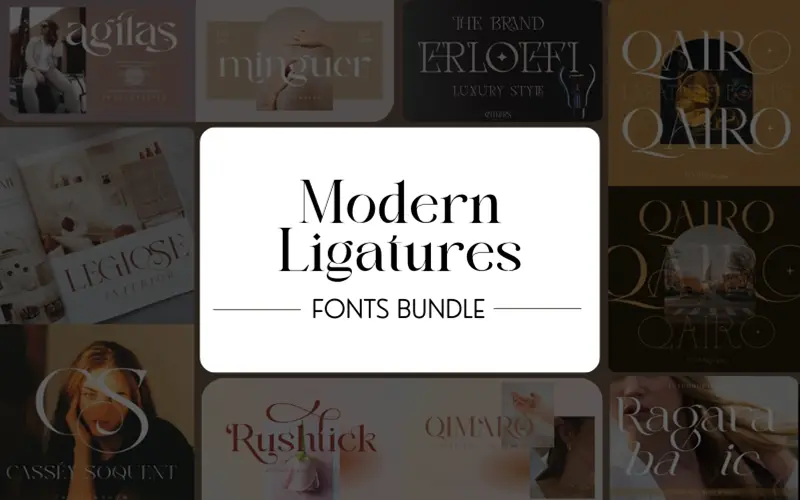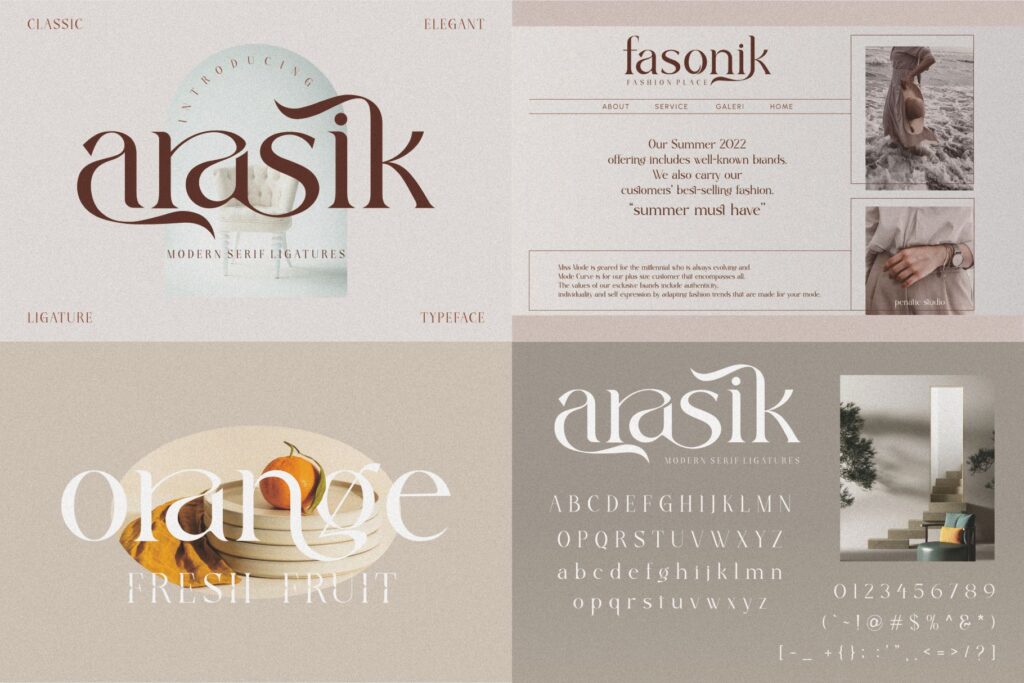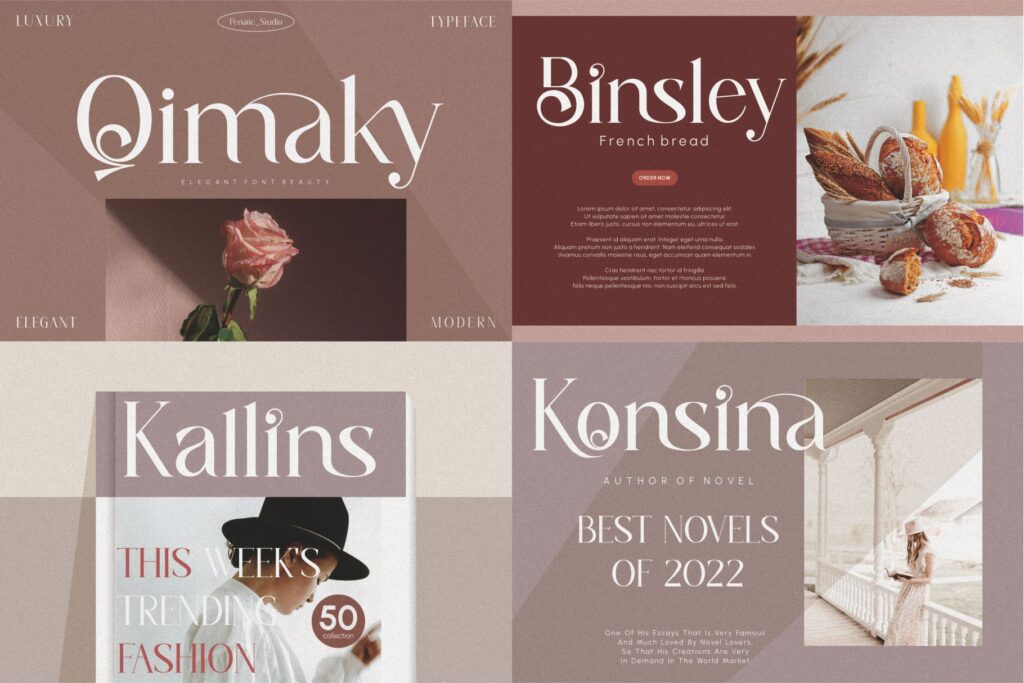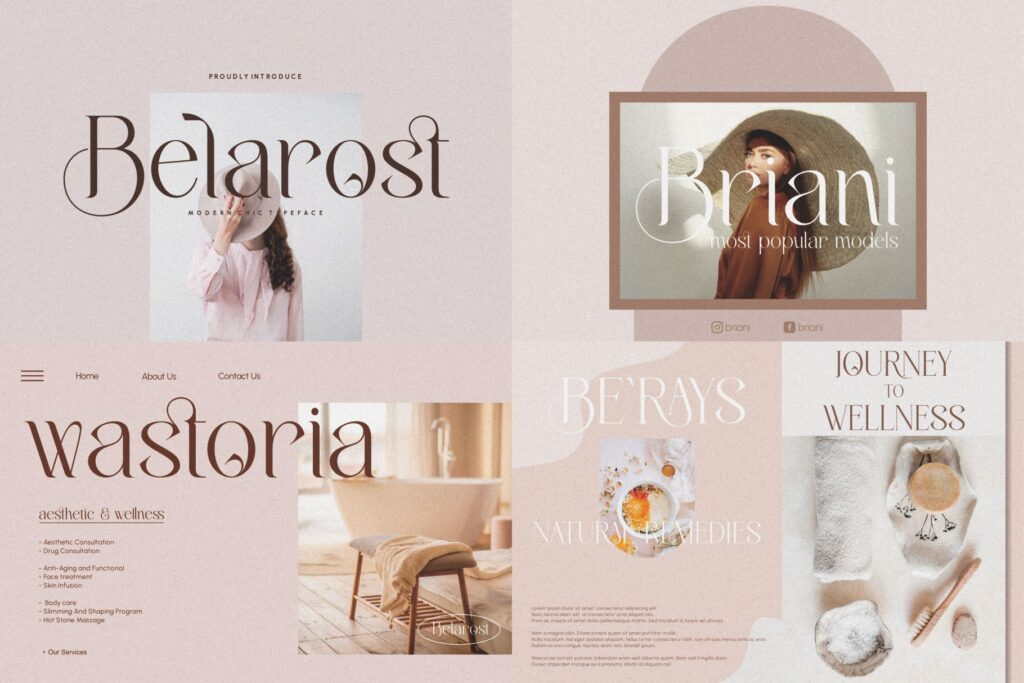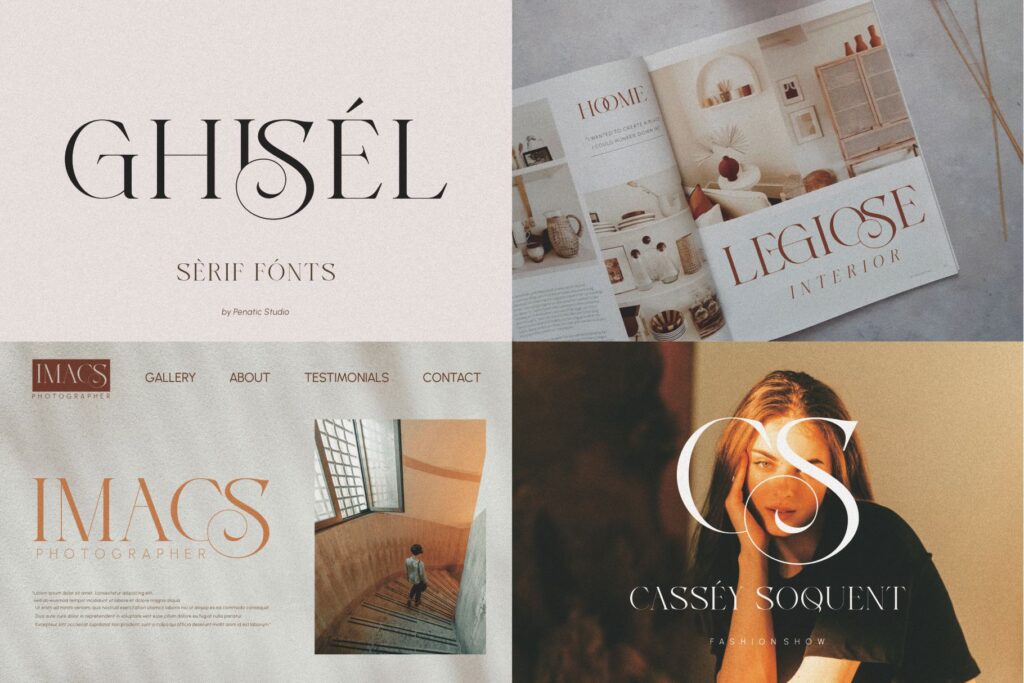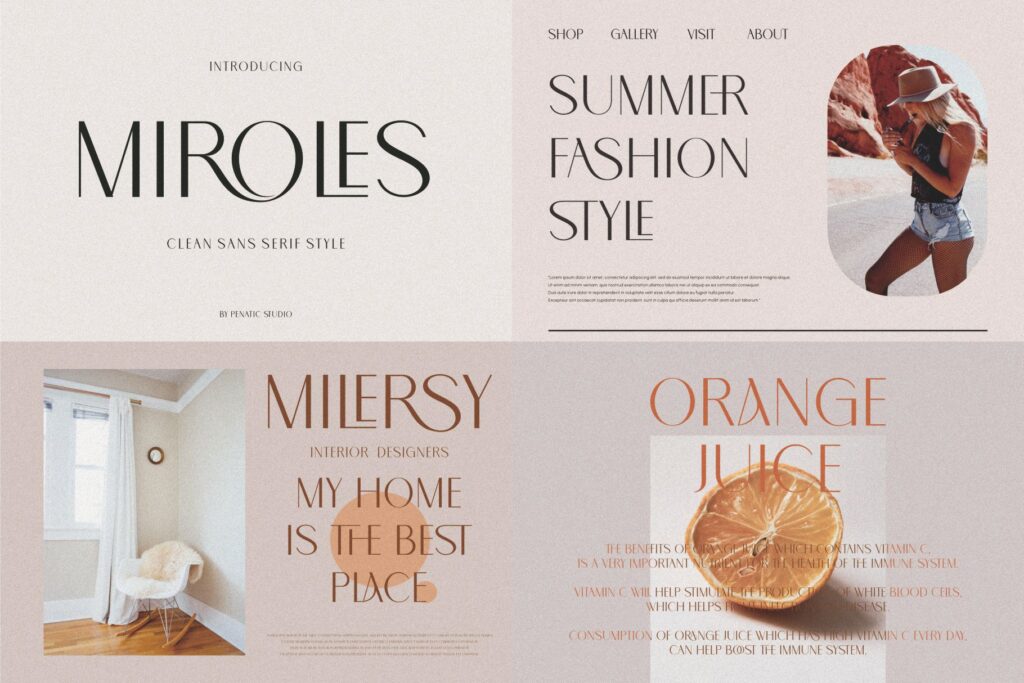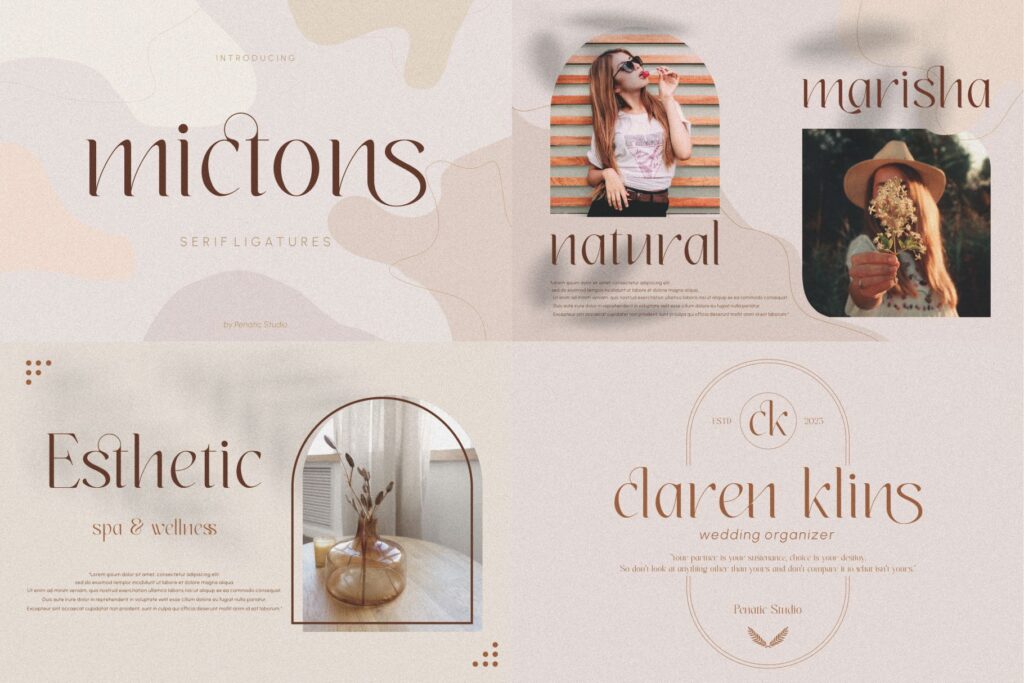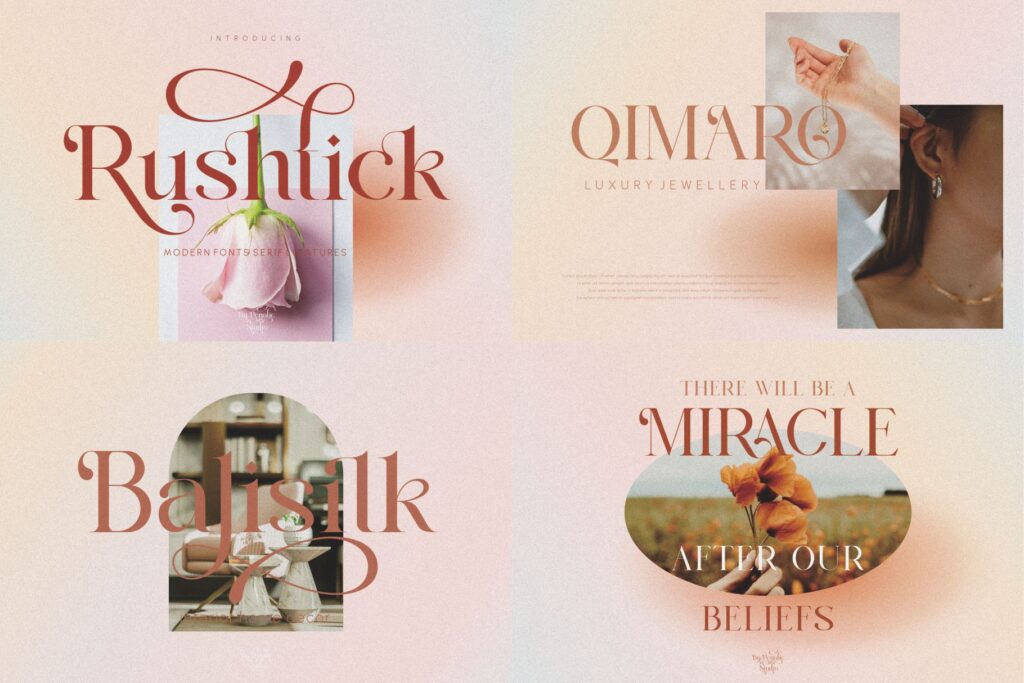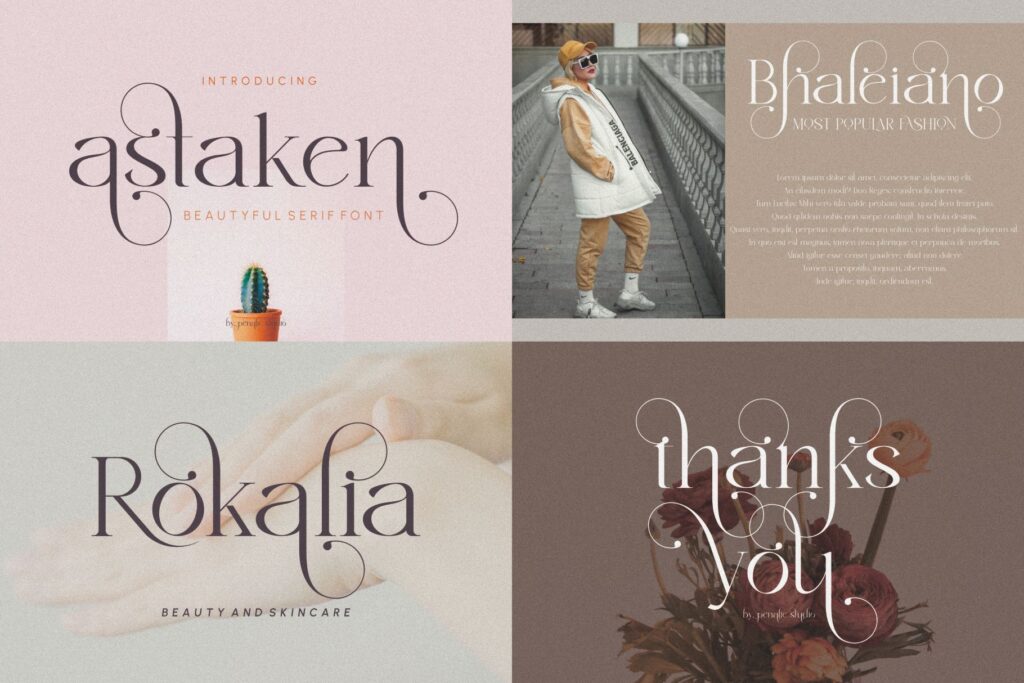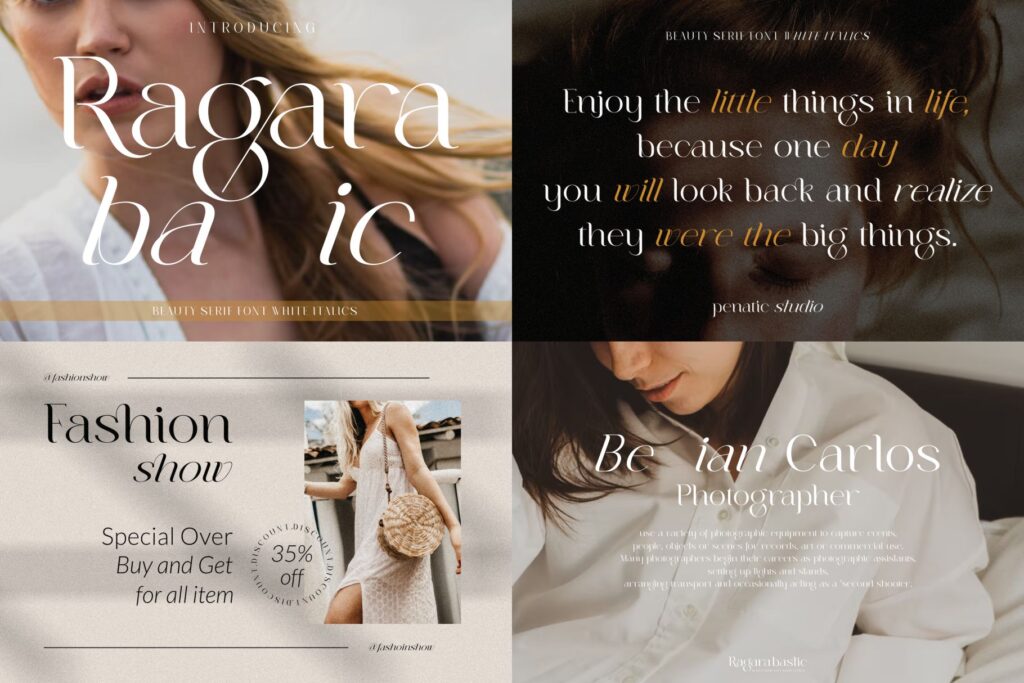
• 12 Modern Ligatures Fonts
Add a touch of class & modernity to your designs with these versatile and easy-to-use fonts in the –
Modern Ligatures Fonts Bundle
They are ideal for creating banners, posters, packaging, book covers, flyers, social media graphics and other creatives.
This Modern Ligatures Fonts Bundle Includes:
• Arasik Font
• Astaken Font
• Belarost Font
• Chikers Font
• Ghisel Font
• Mictons Font
•  Miroles Font
• Qairo Font
• Qastars Font
• Qimaky Font
• Ragara Font Duo
• Rushtick Font
•  12 Modern Ligature Fonts
A Sneak Peak Into The Ligatures Fonts:
A collage of the scripts included
A collage of modern typefaces included
A collage of modern ligature fonts included
A preview of ligature fonts included
A preview of modern scripts included
A preview of ligature fonts included
A preview of scripts included
A preview of ligatures included
Preview of fonts included